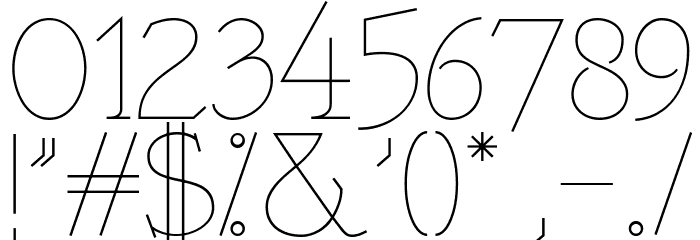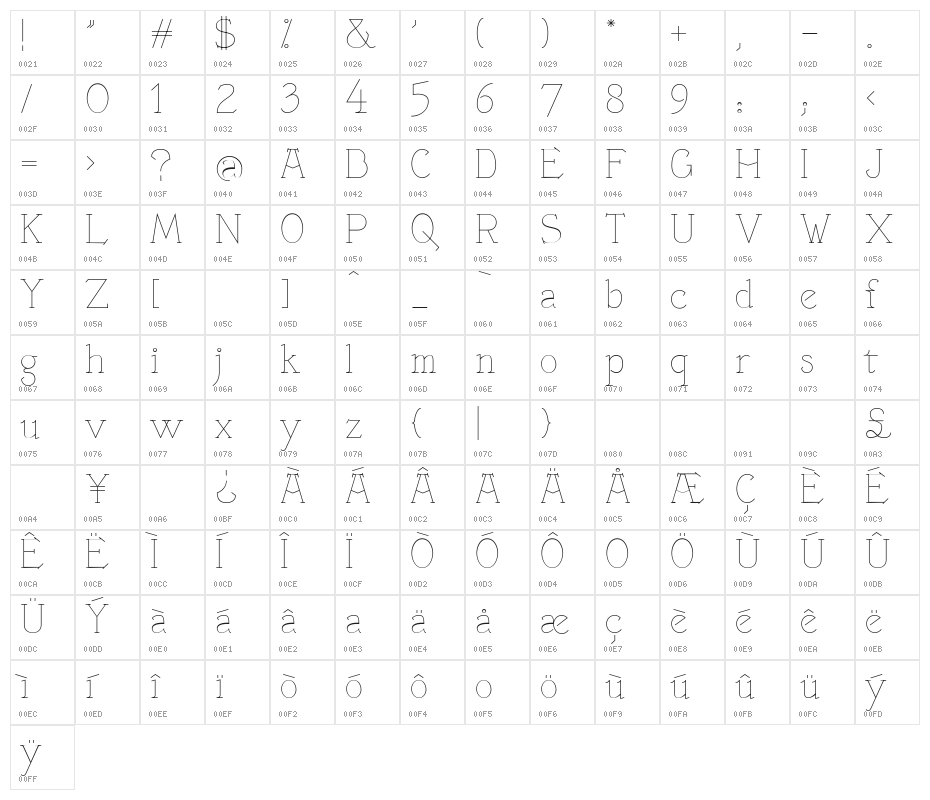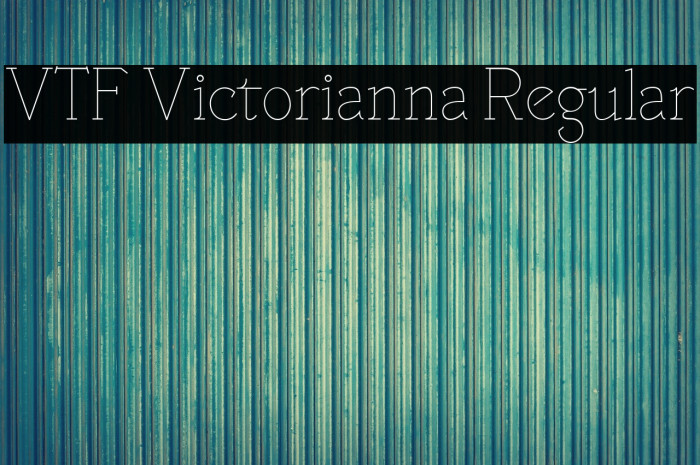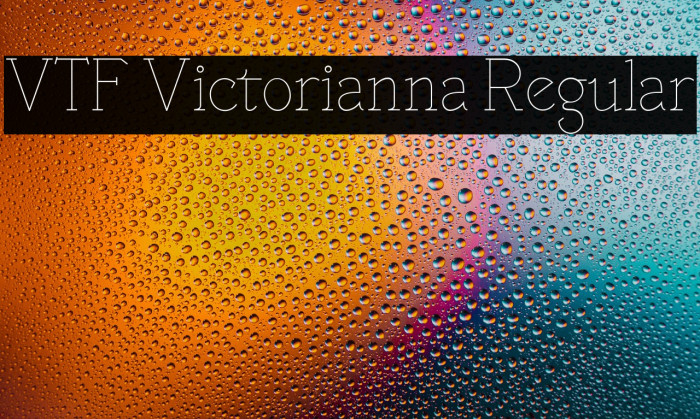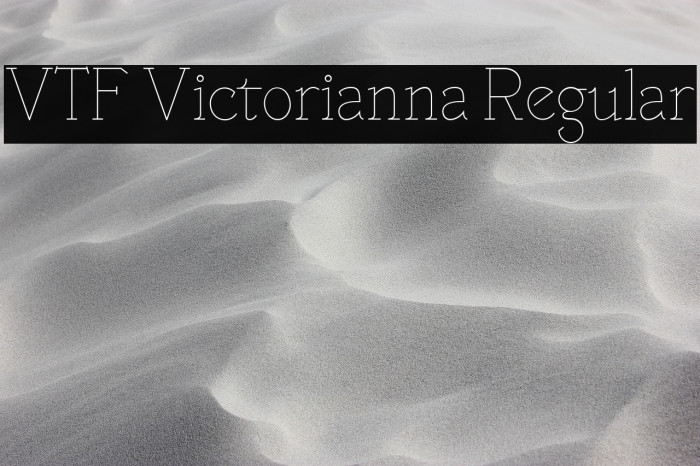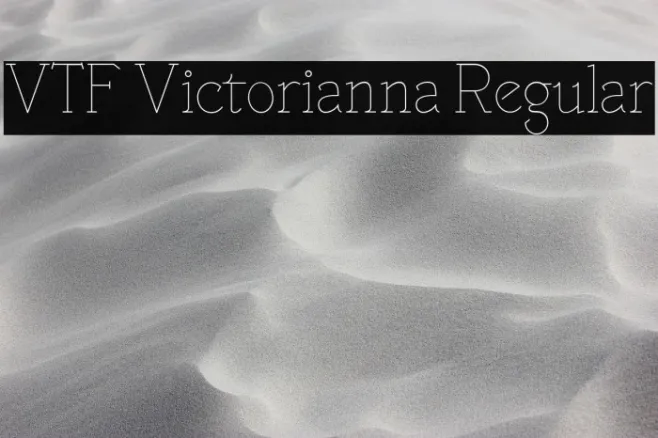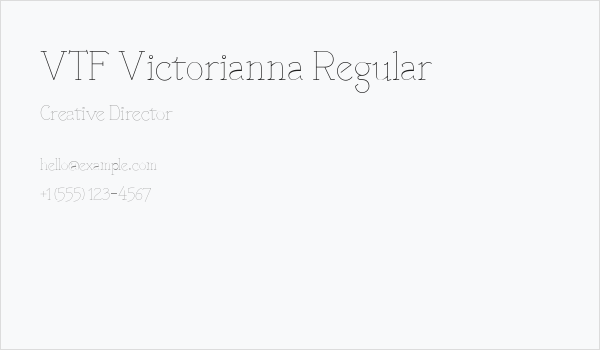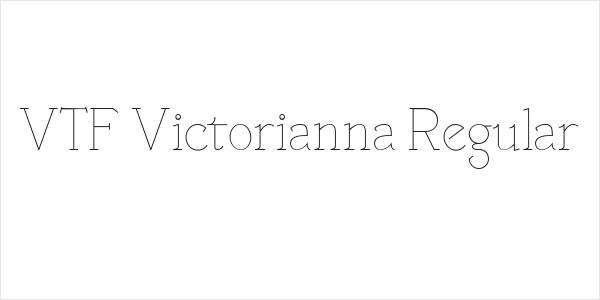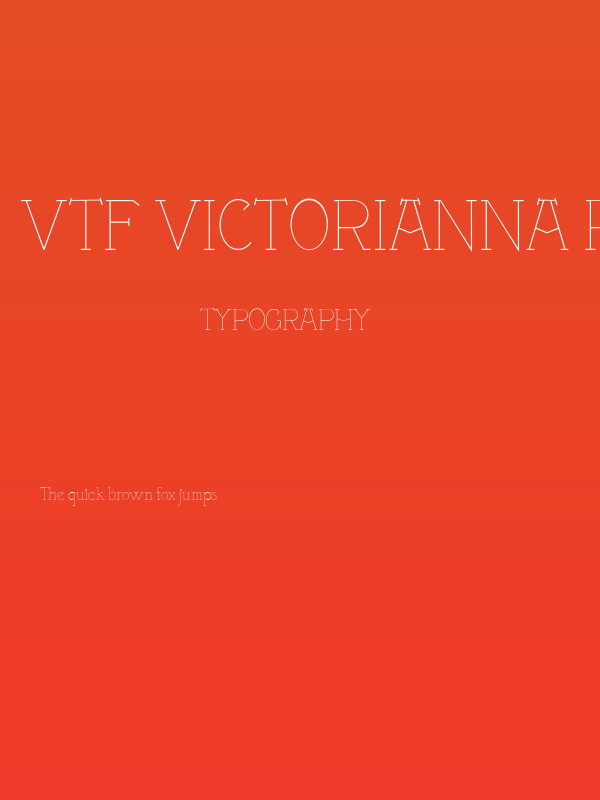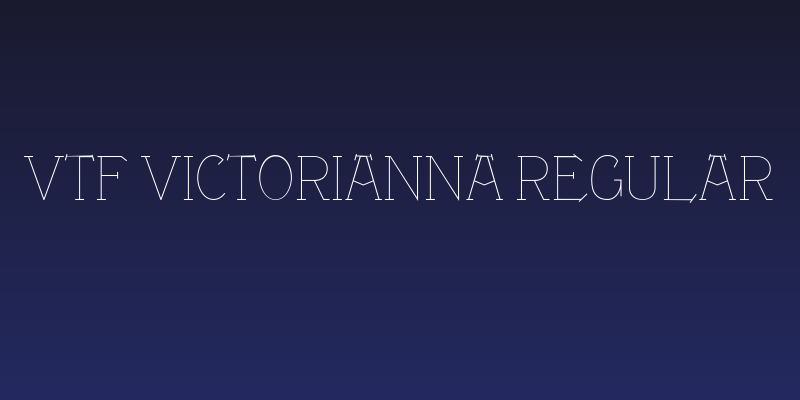
VTF Victorianna Regular Font
VTF Victorianna Regular Description
This font features a distinctive blend of modern and classic elements, characterized by its thin, elegant strokes and subtle serifs. The uppercase letters exhibit a refined structure with clean lines and a slight angularity, while the lowercase letters maintain a consistent flow with rounded forms and delicate curves. The numerals are well-proportioned, offering a harmonious balance between height and width. Special characters are crafted with precision, ensuring readability and aesthetic appeal. Overall, this font exudes sophistication and versatility, making it suitable for a variety of design applications.